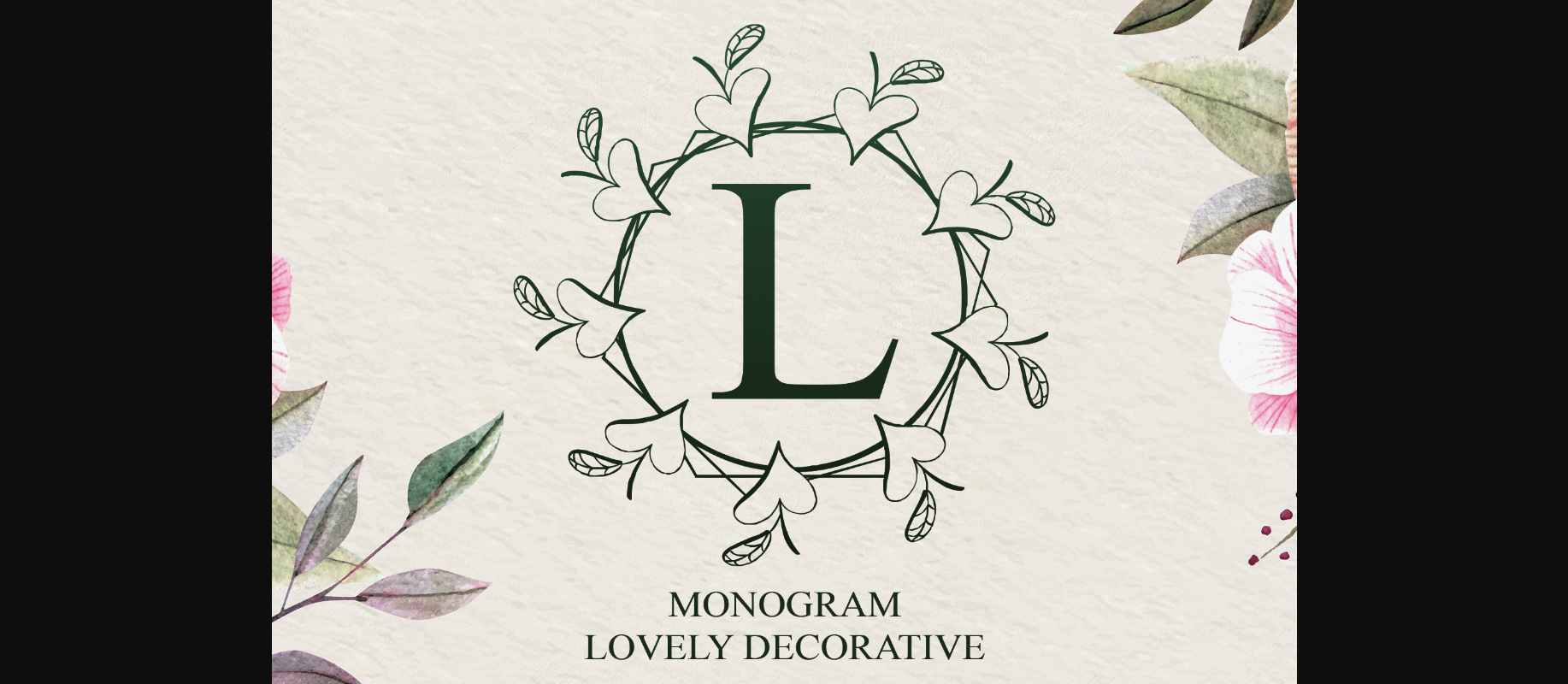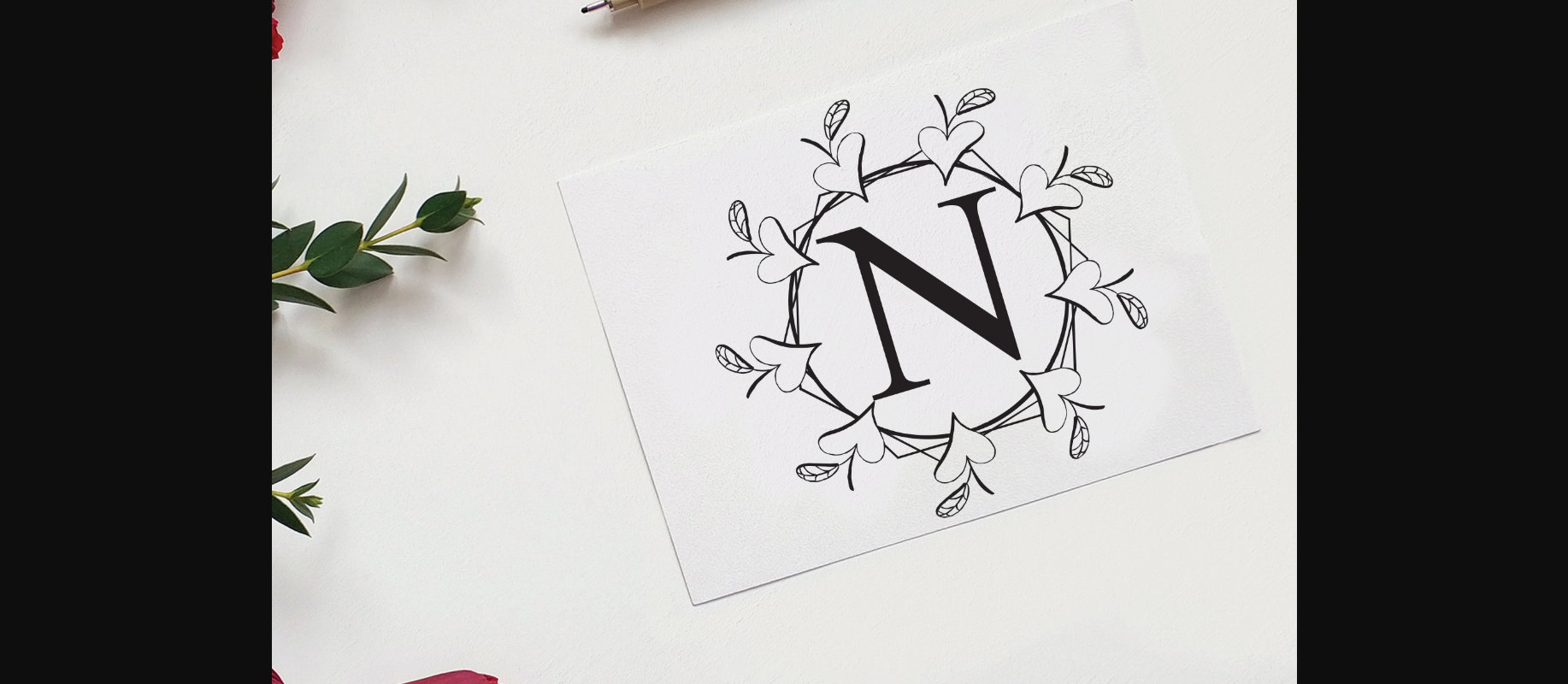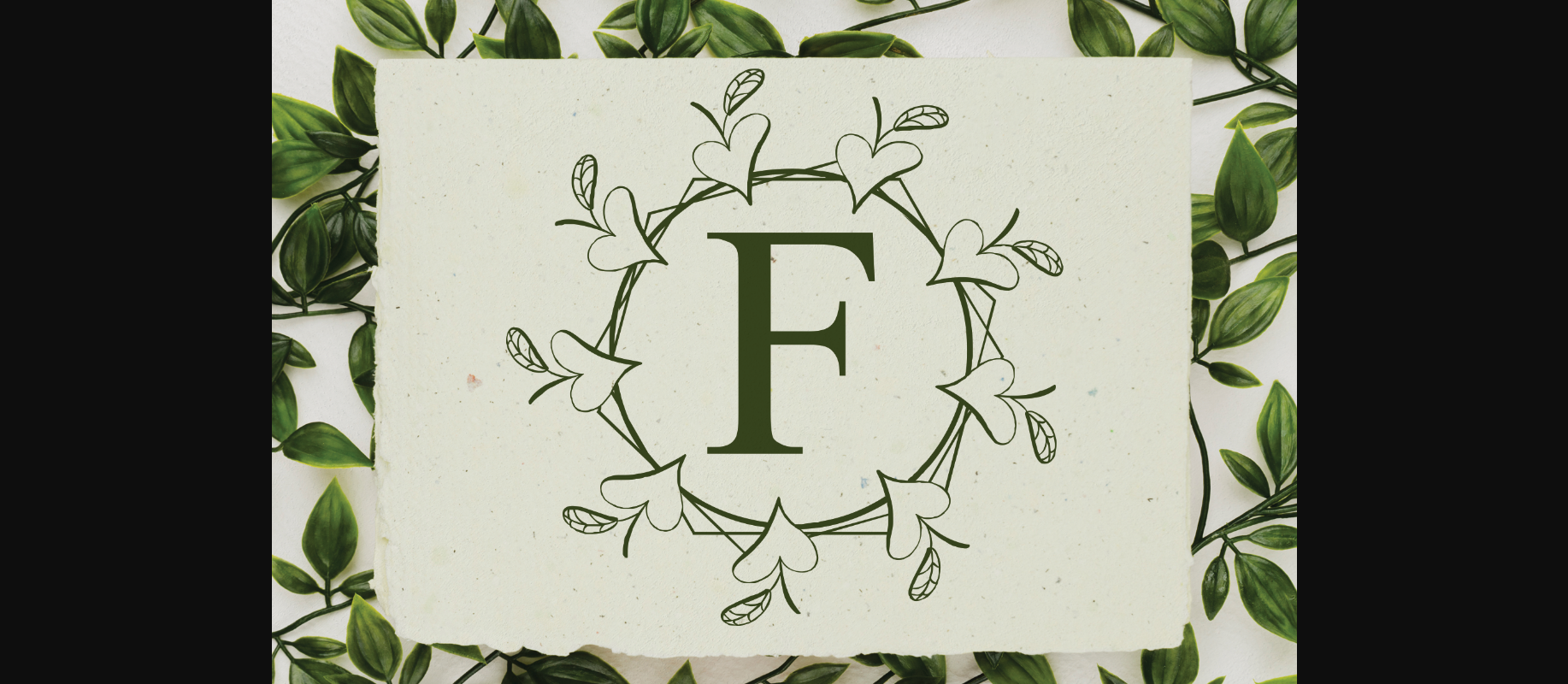
About Lovely Font
Lovely is a delicate and highly detailed decorative font. Add this romantic and beautiful looking font to each of your love letters, wedding invitations or favorite design ideas, and you will be astounded by the outcome.